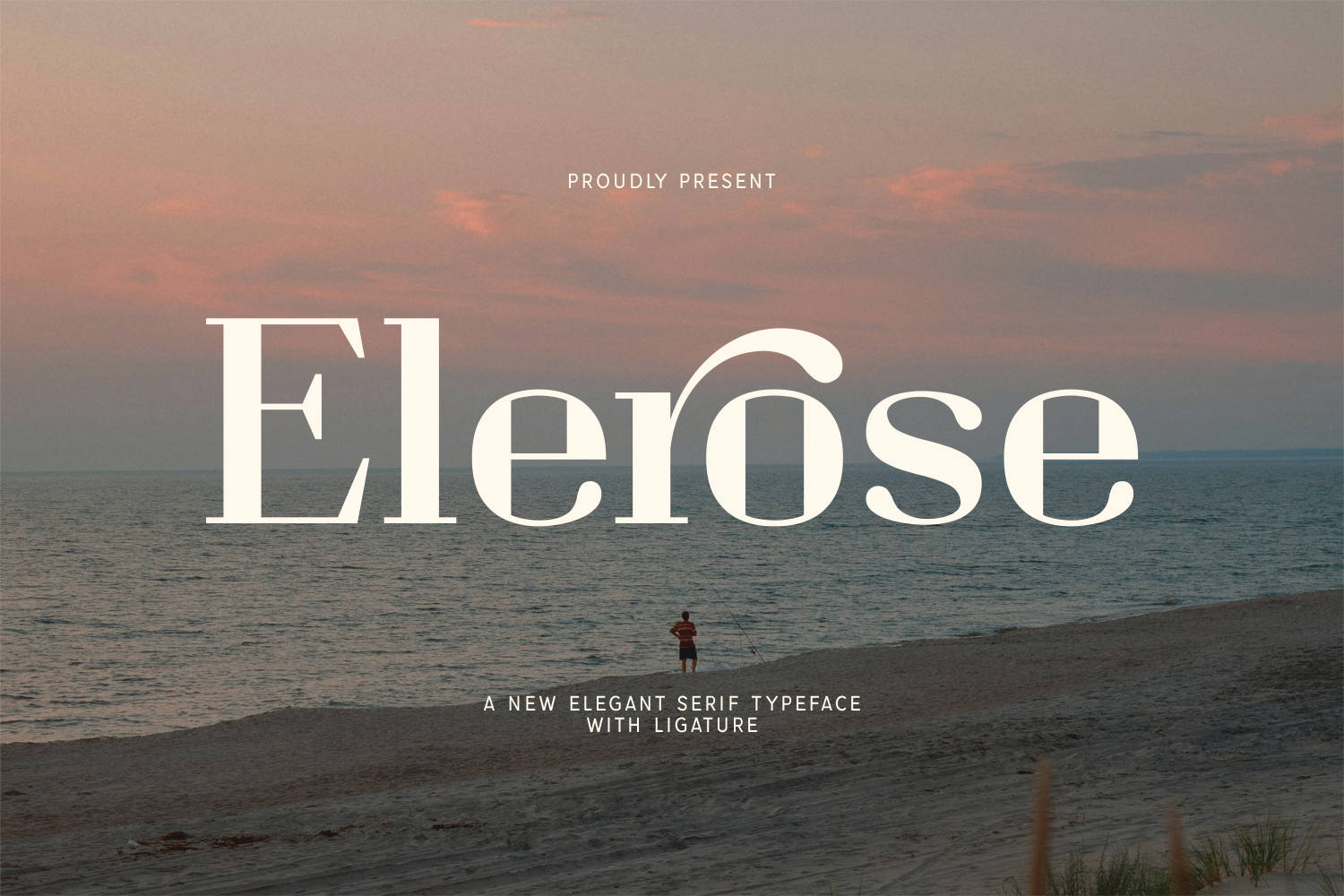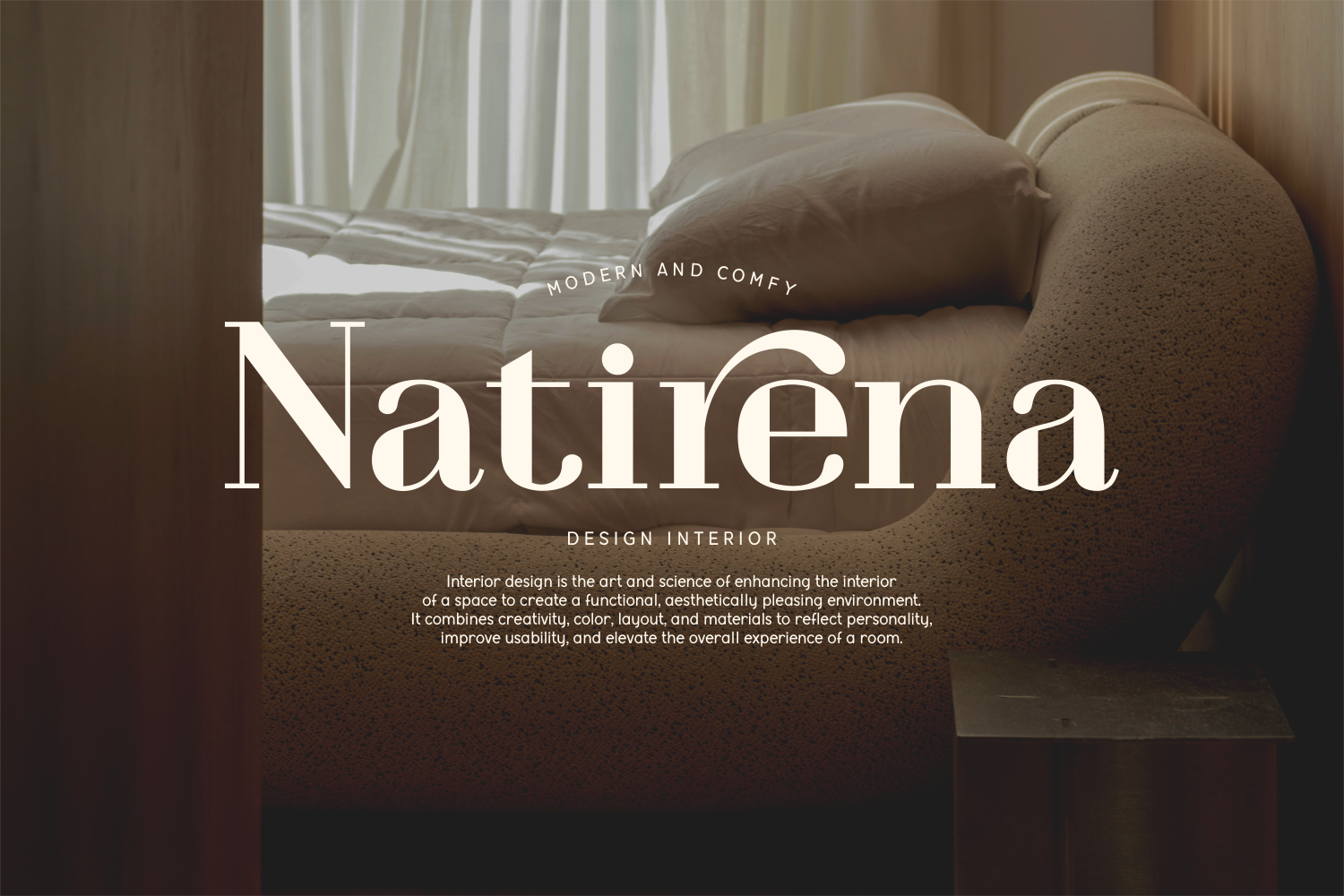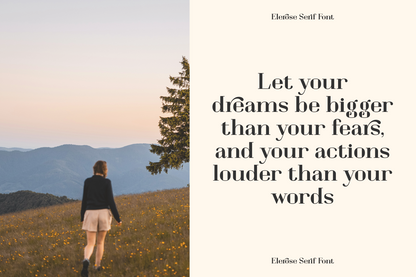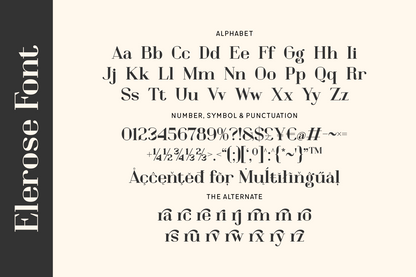
Elerose is a graceful serif typeface featuring refined curves and stylish ligatures. Its balanced elegance and artistic flair make it an excellent choice for beauty branding, wedding invites, and editorial design that seeks a romantic yet modern tone.